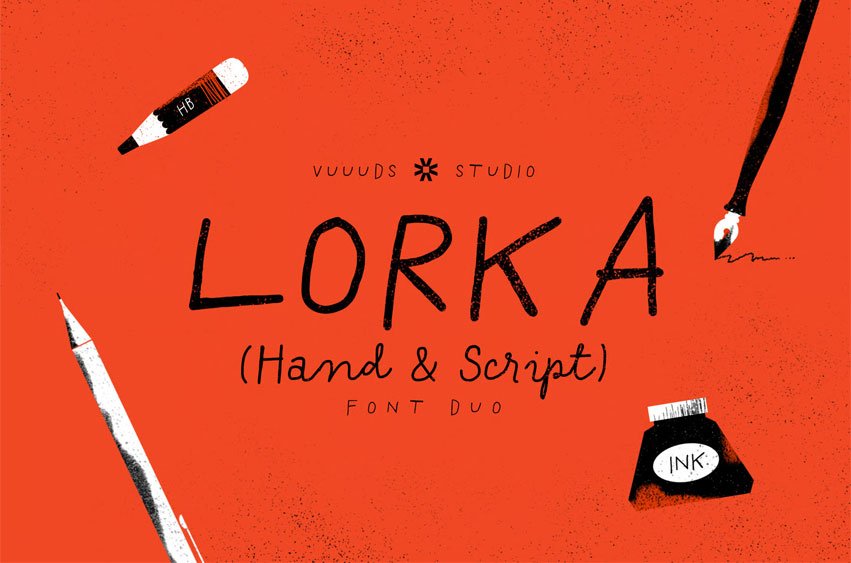
Lorka Font is a casual handwritten font duo; every single letter has been uniquely crafted. This font includes beautiful alternate glyphs. You can access the alternate glyph via Font Book (Mac user) or Windows Character Map (Windows user).
Multi-language support: ÀÁÂÃÄÅĂÆÇÈÉÊËÌÍÎÏÐÑÒÓÔÕÖØÙÚÛÜŸÝ àáâãäåăæçèéêëìíîïðñòóôõöøùúûüýÿ ȚțȘș߀£¥©®™